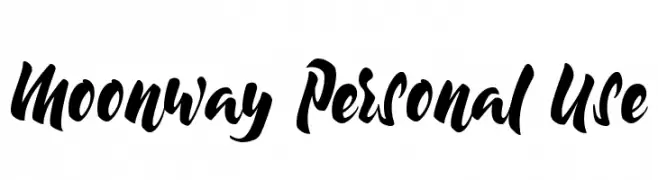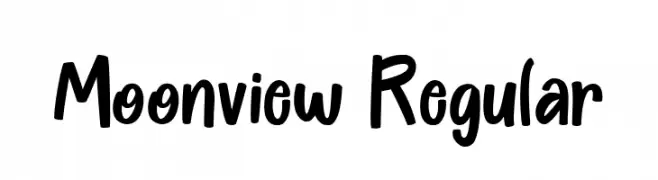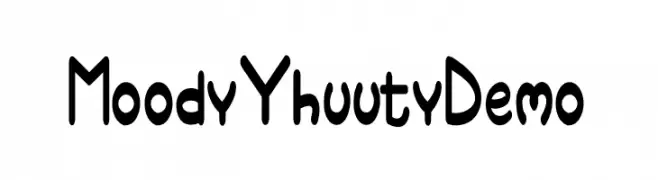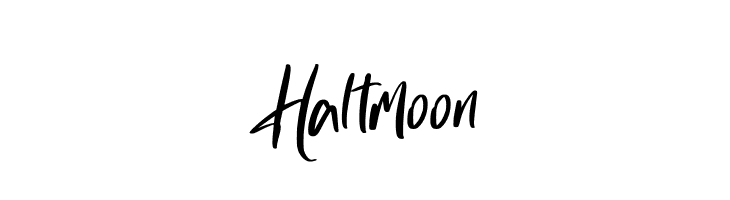
Ornate decorative elements and flourishes in a hand-drawn style.
A playful, handwritten script font with dynamic strokes.
A bold, expressive handwritten font with dynamic, fluid characters.
A bold, playful handwritten font with thick strokes and rounded edges.
A whimsical, handwritten font with dynamic strokes and artistic flair.
A bold, expressive handwritten font with a textured, brush-like appearance.
A playful, rounded font with a whimsical and friendly style.
A modern, geometric font with clean lines and a minimalistic style.
A playful, modern handwritten font with a lively and energetic style.
A dynamic, handwritten-style font with fluid, expressive characters.